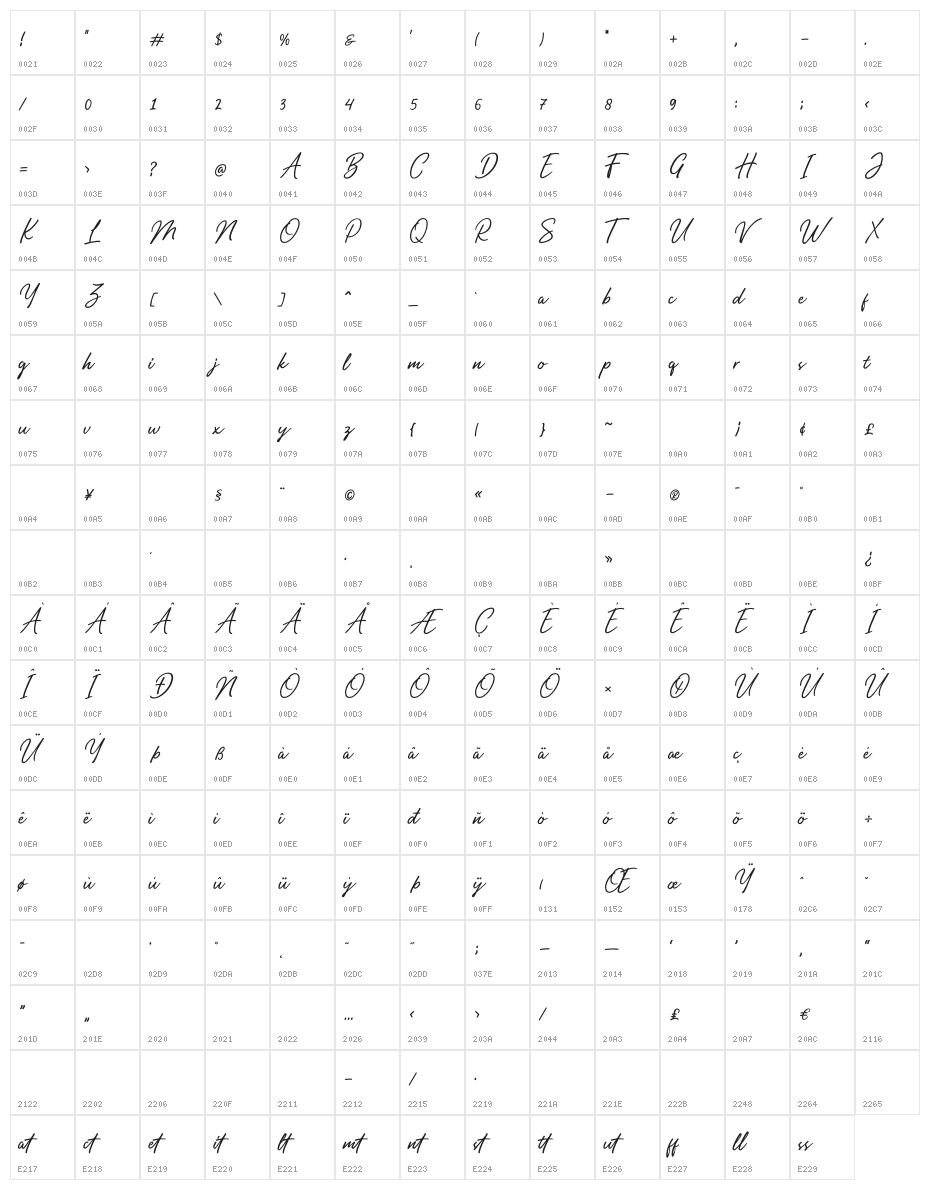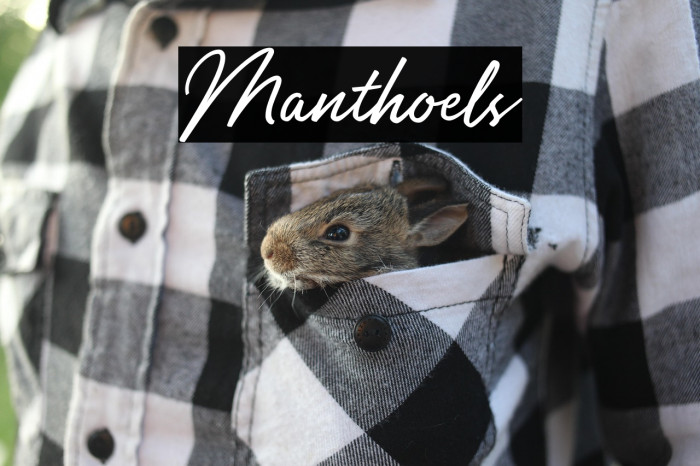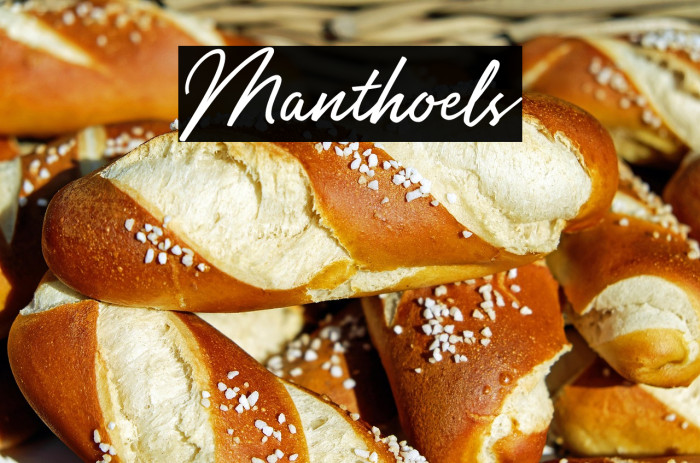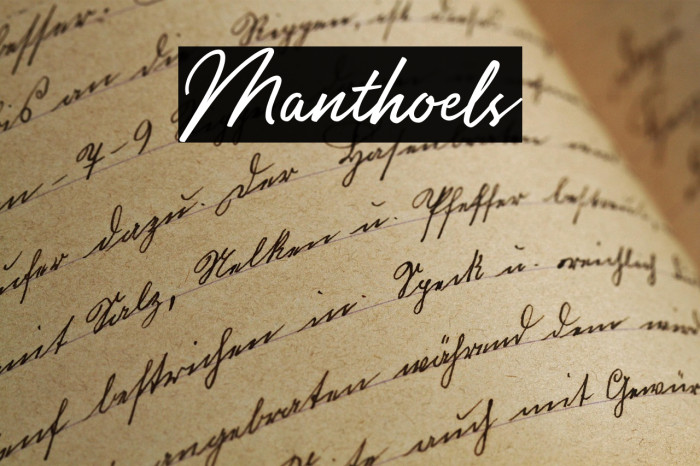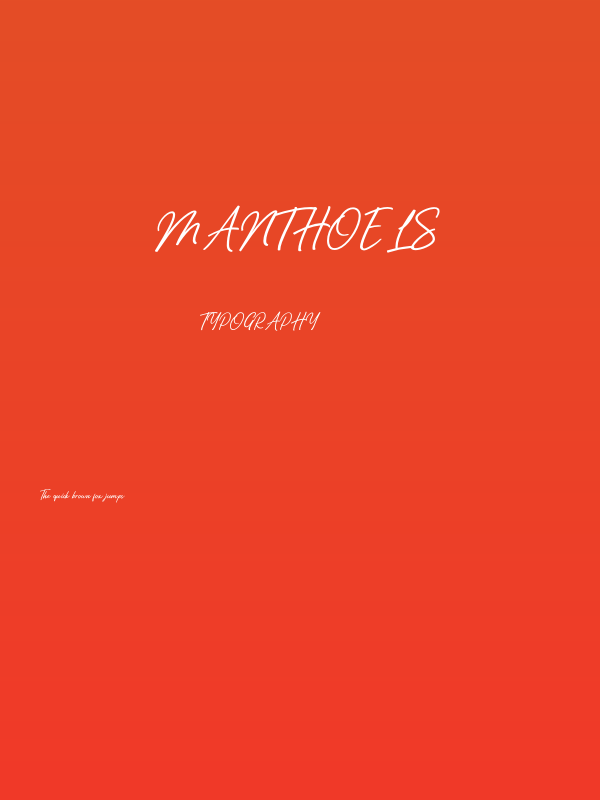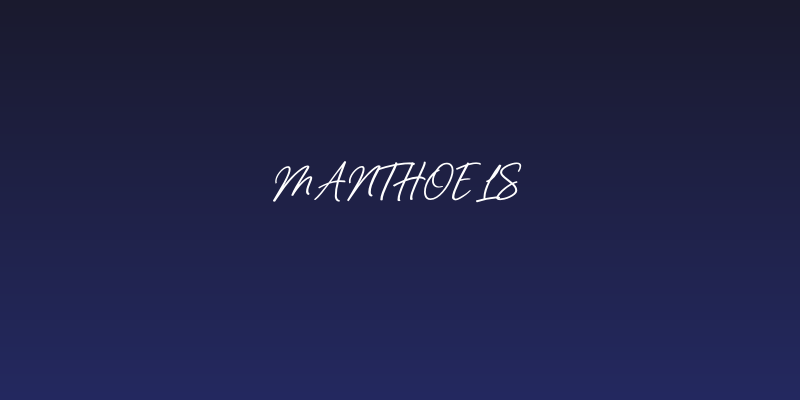
Manthoels Font
Manthoels Description
This font features an elegant and flowing script style, reminiscent of traditional calligraphy. The characters are connected with smooth, sweeping strokes that give it a graceful and sophisticated appearance. The uppercase letters are slightly more ornate, with flourishes that add a touch of formality, while the lowercase letters maintain a consistent rhythm and flow. The numerals and special characters are designed to match the overall aesthetic, ensuring a cohesive look across all text elements. This font is ideal for projects that require a personal touch, such as invitations, greeting cards, or branding materials.
| Overall Style | Classic |
| Use Case | Logos, Invitations, Decorative text |
| Proposed Projects | Ideal for wedding invitations, greeting cards, branding, and elegant signage. |